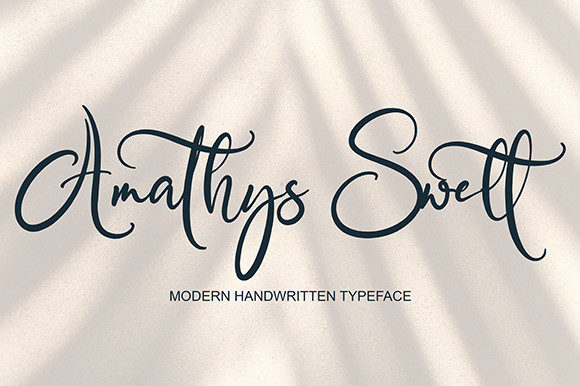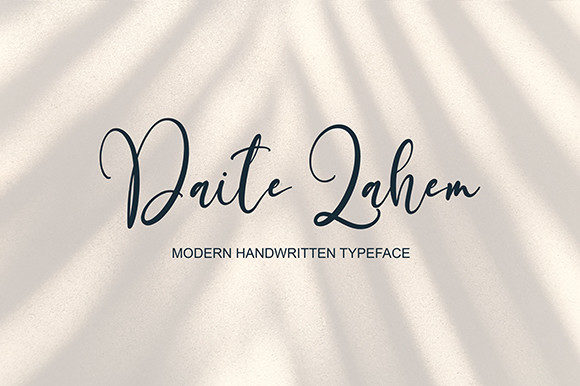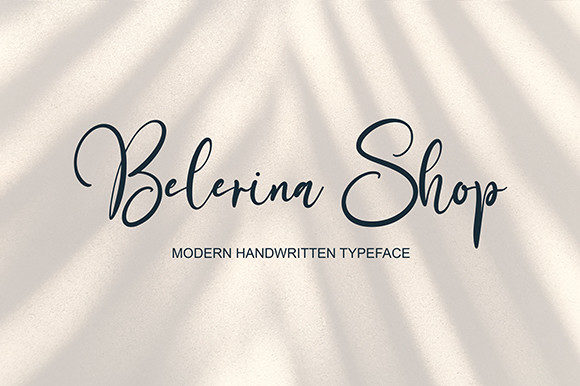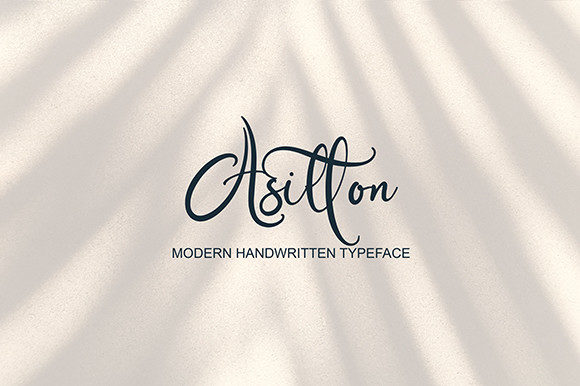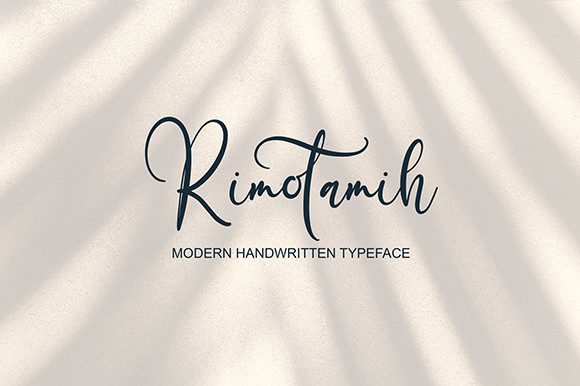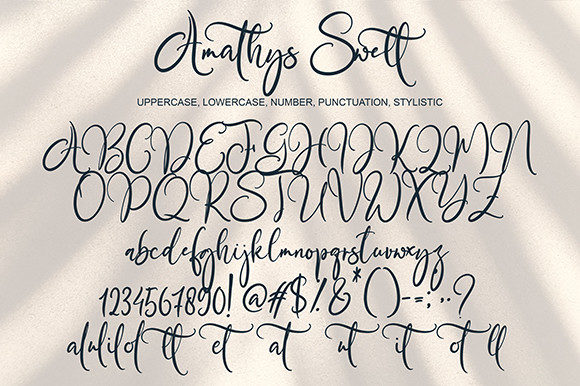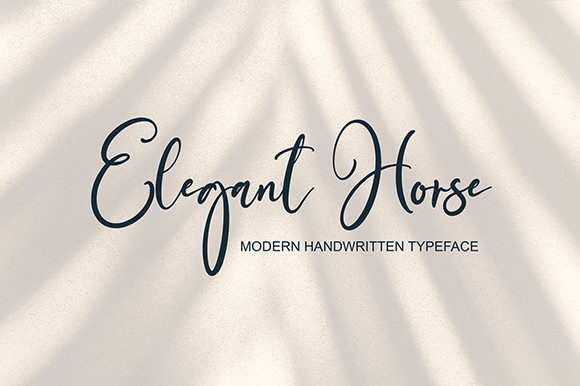
Amathys Font
About Amathys Font
“Amathys” is a delicate and fashionable script font that exudes elegance and sophistication. With its graceful curves and stylish appearance, this font adds a touch of luxury to any design project, making it perfect for a wide range of branding applications.
One of the standout features of “Amathys” is its delicate and refined design, which gives it a high-fashion aesthetic. Whether used for logos, t-shirt printing, or creative products, this font adds a sense of class and sophistication that elevates the overall look and feel of your branding materials.
The font’s versatility makes it suitable for a variety of contexts, from corporate branding to personal projects. Its elegant script style conveys a sense of professionalism and creativity, making it the perfect choice for any design endeavor.
Whether used for digital or print media, “Amathys” stands out with its exquisite appearance and attention to detail. Its fashionable script font lends a touch of sophistication to any project, ensuring that your branding materials leave a lasting impression on your audience.
Overall, “Amathys” is a versatile and stylish font that brings a sense of luxury and elegance to any design. Whether used for branding projects or creative endeavors, this font’s delicate and fashionable appearance adds a touch of sophistication and class that sets your designs apart.